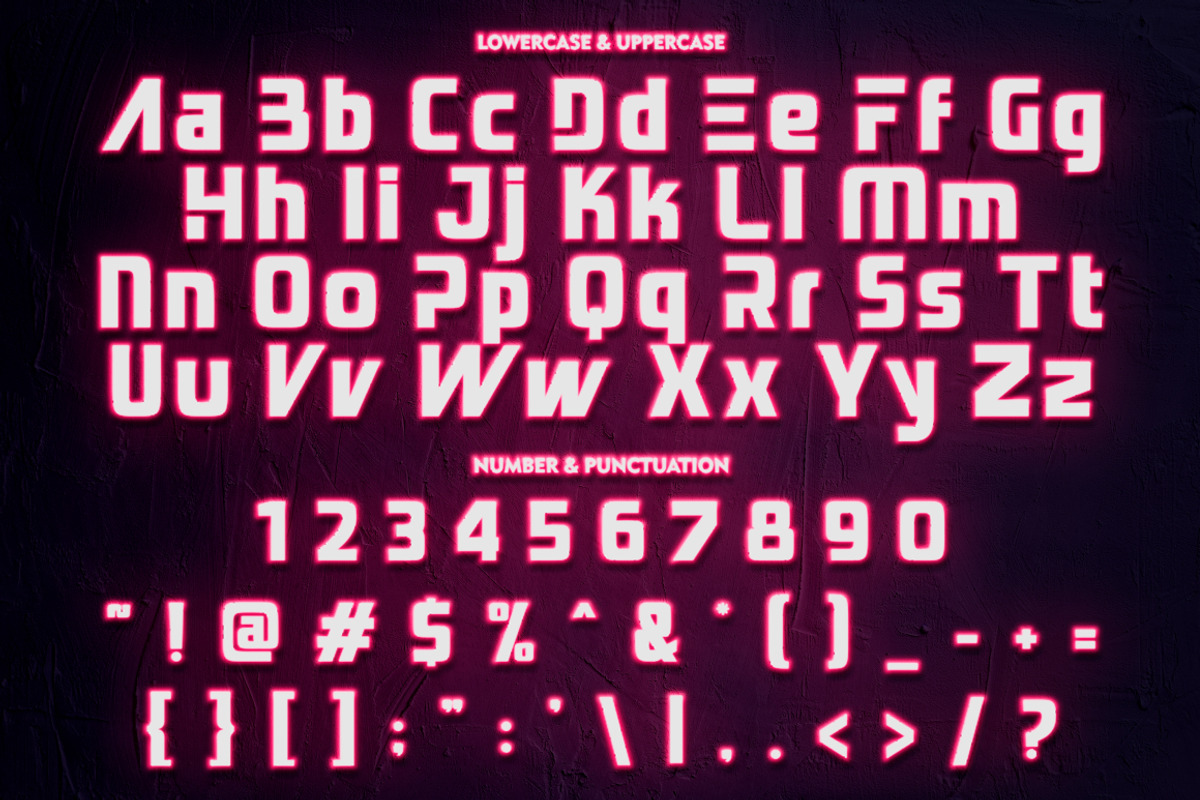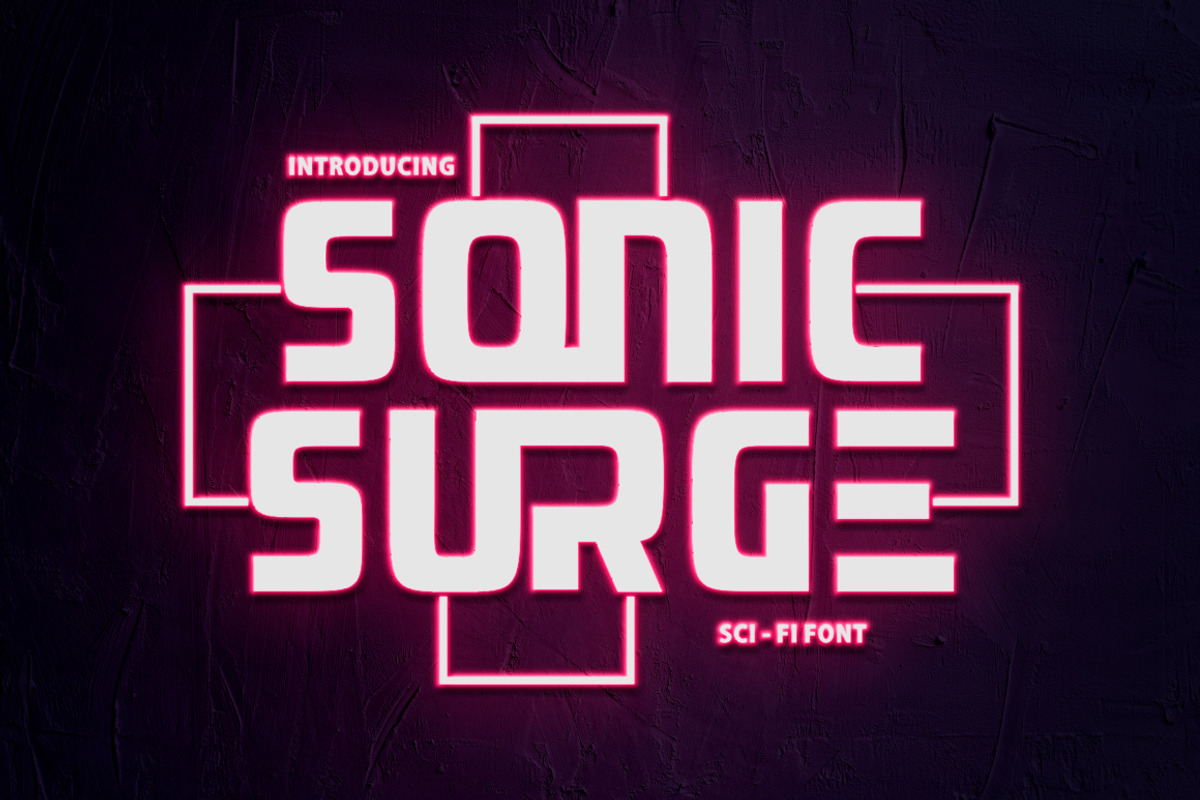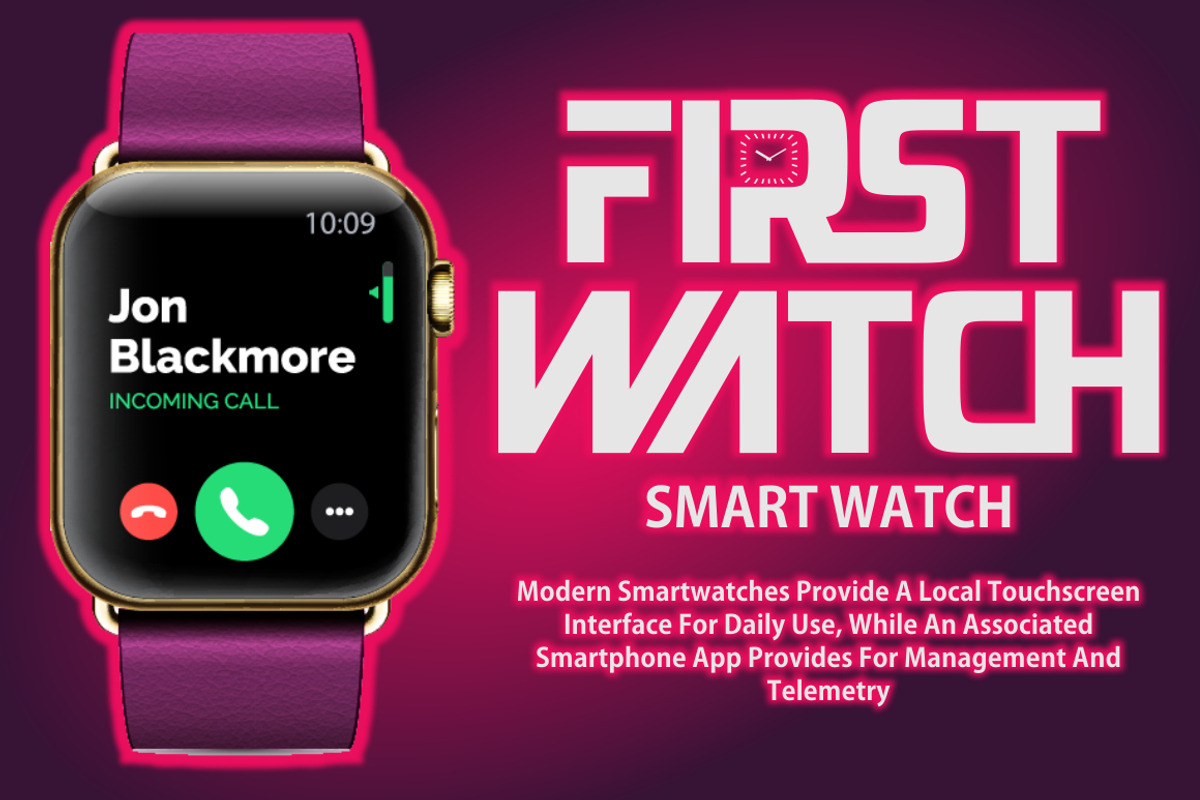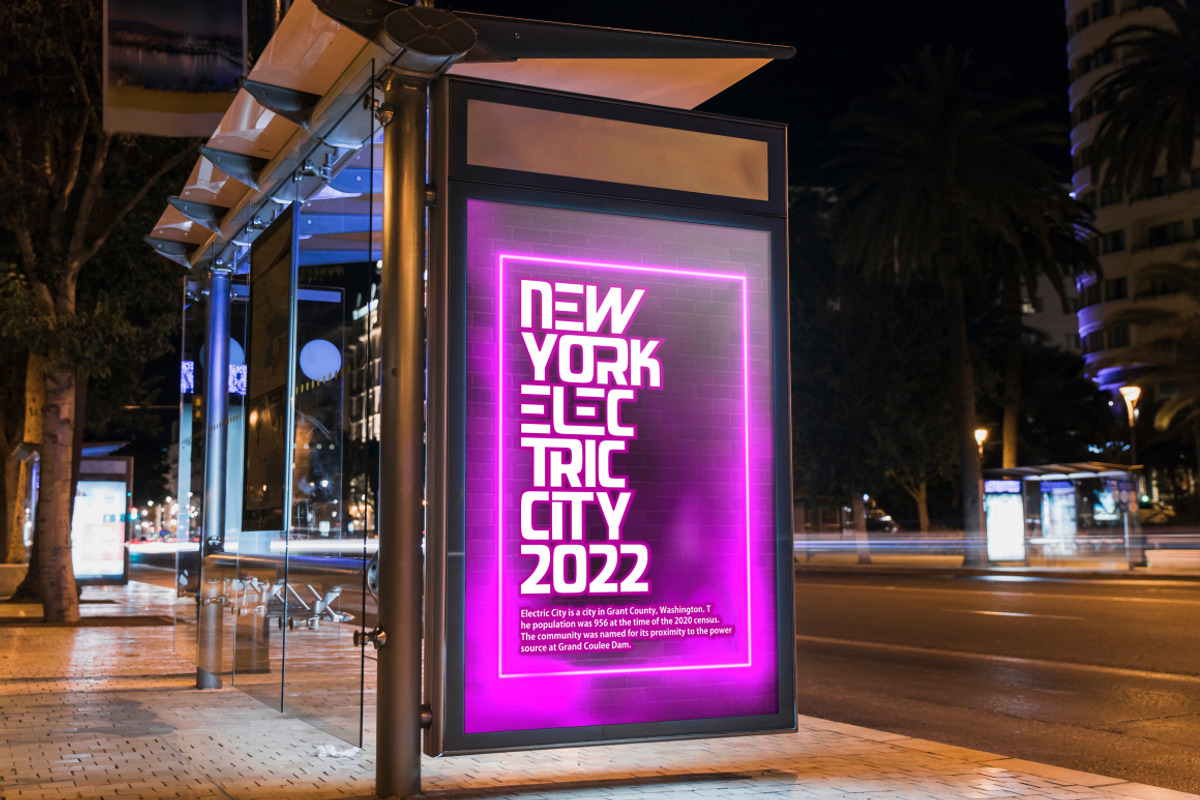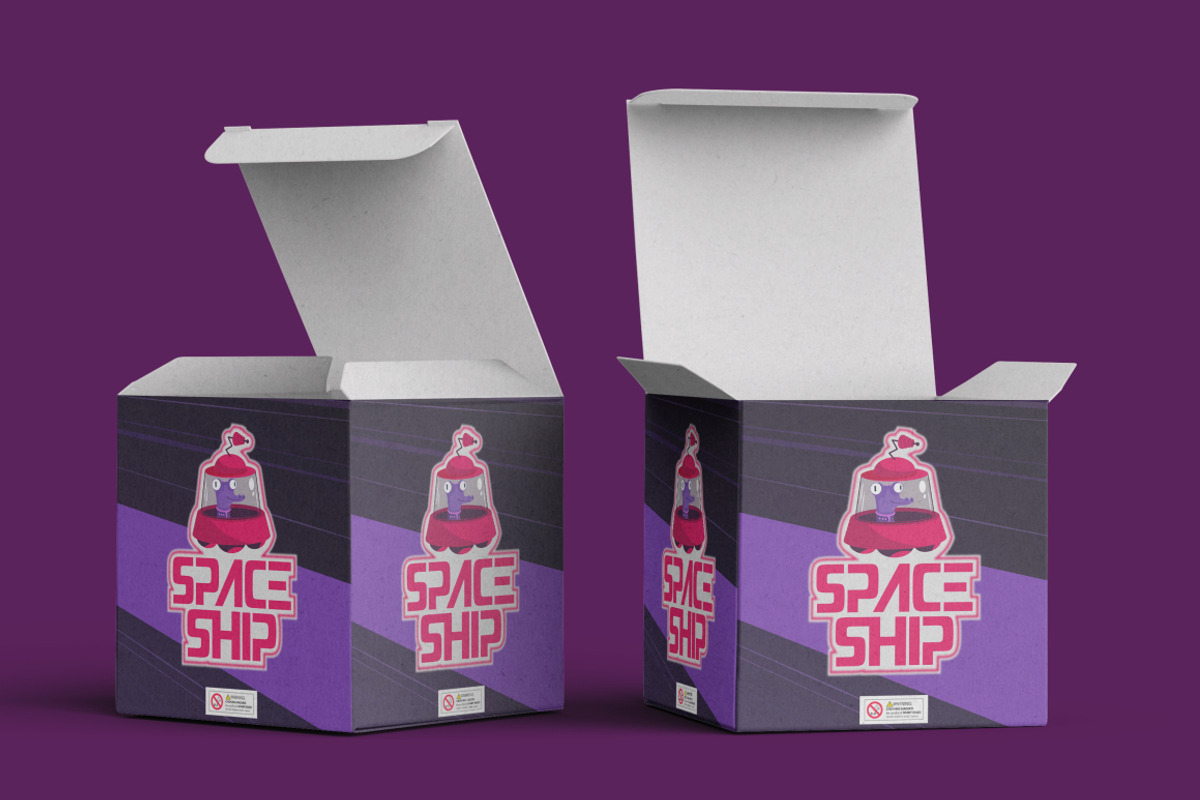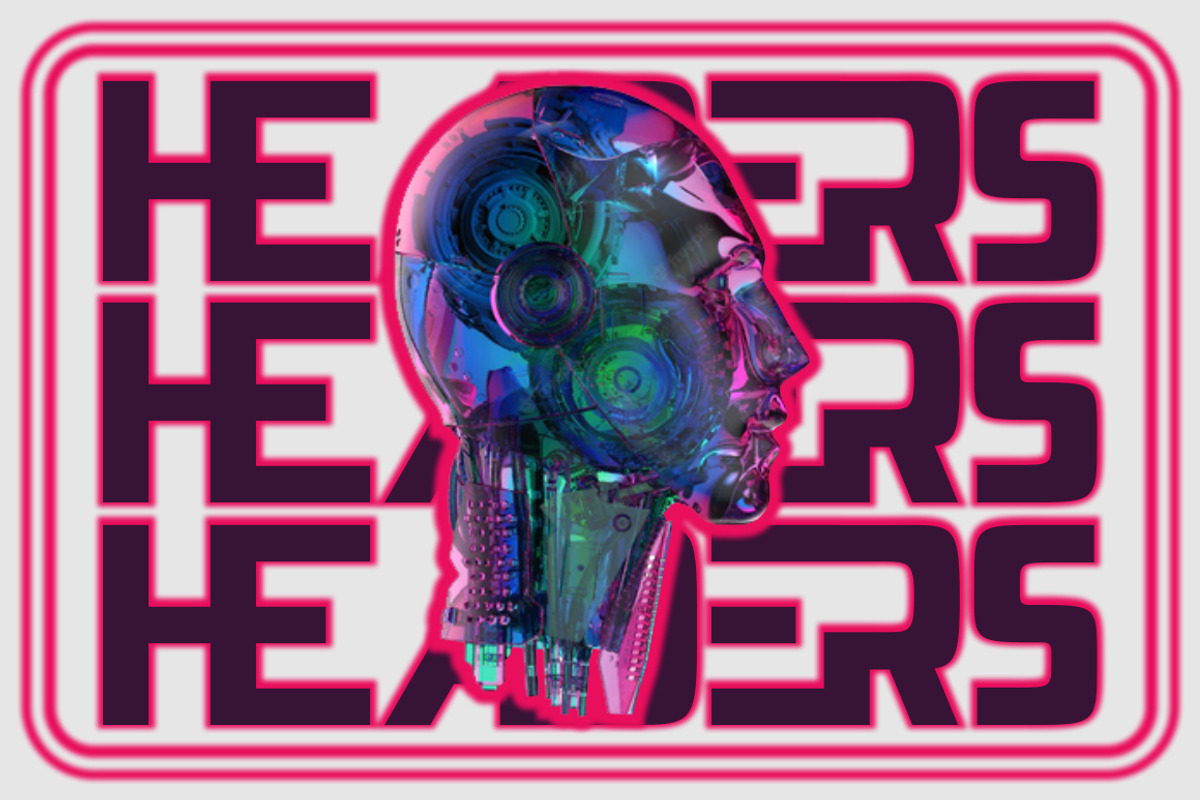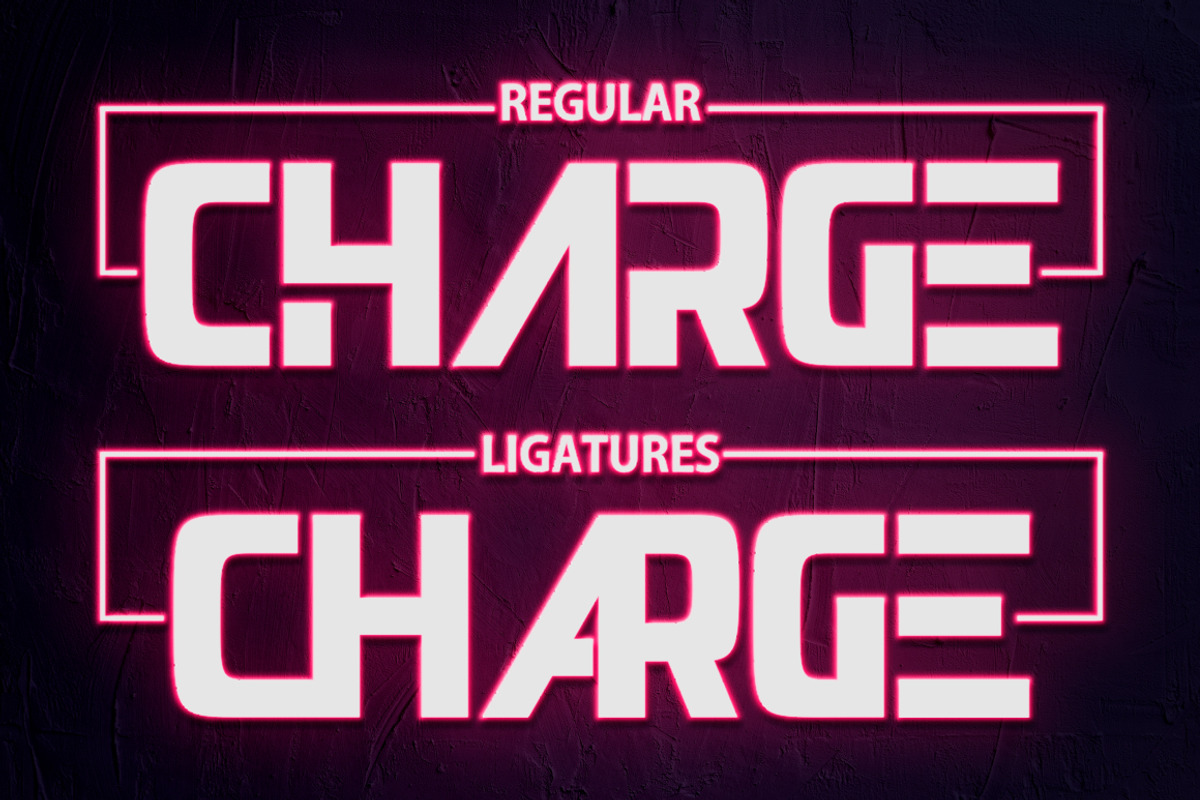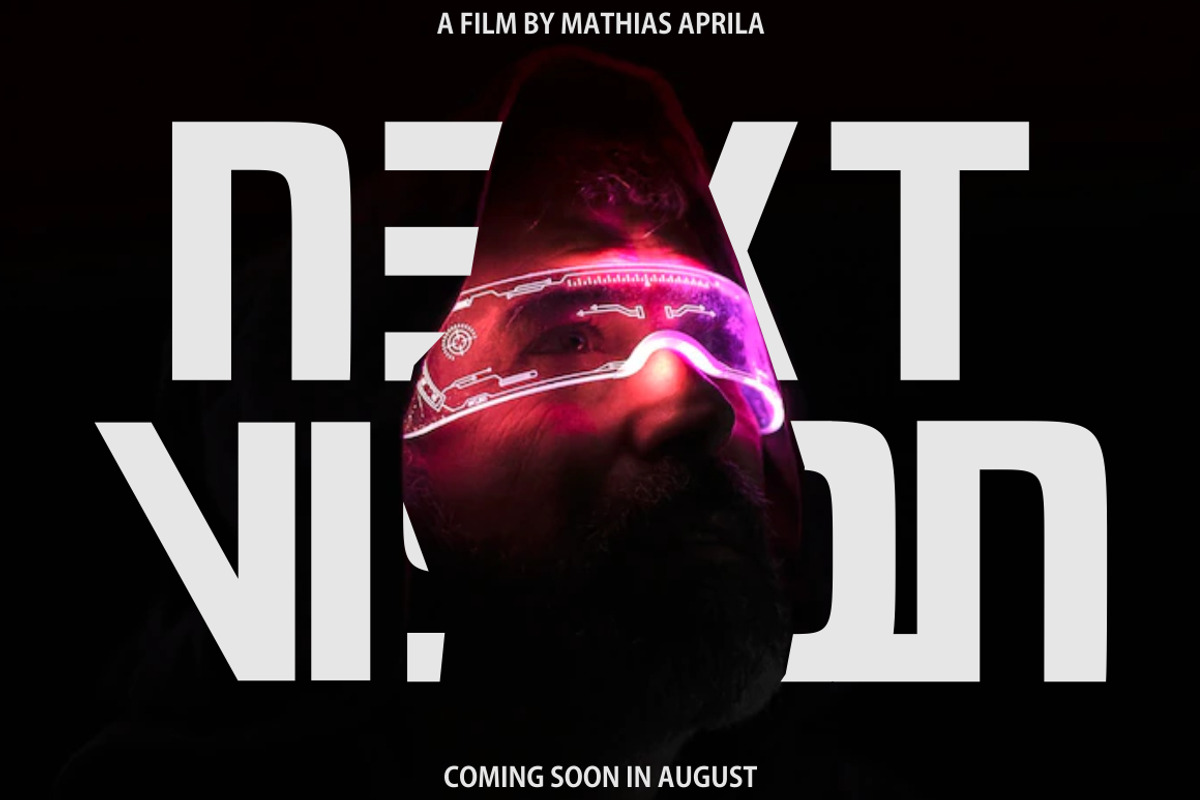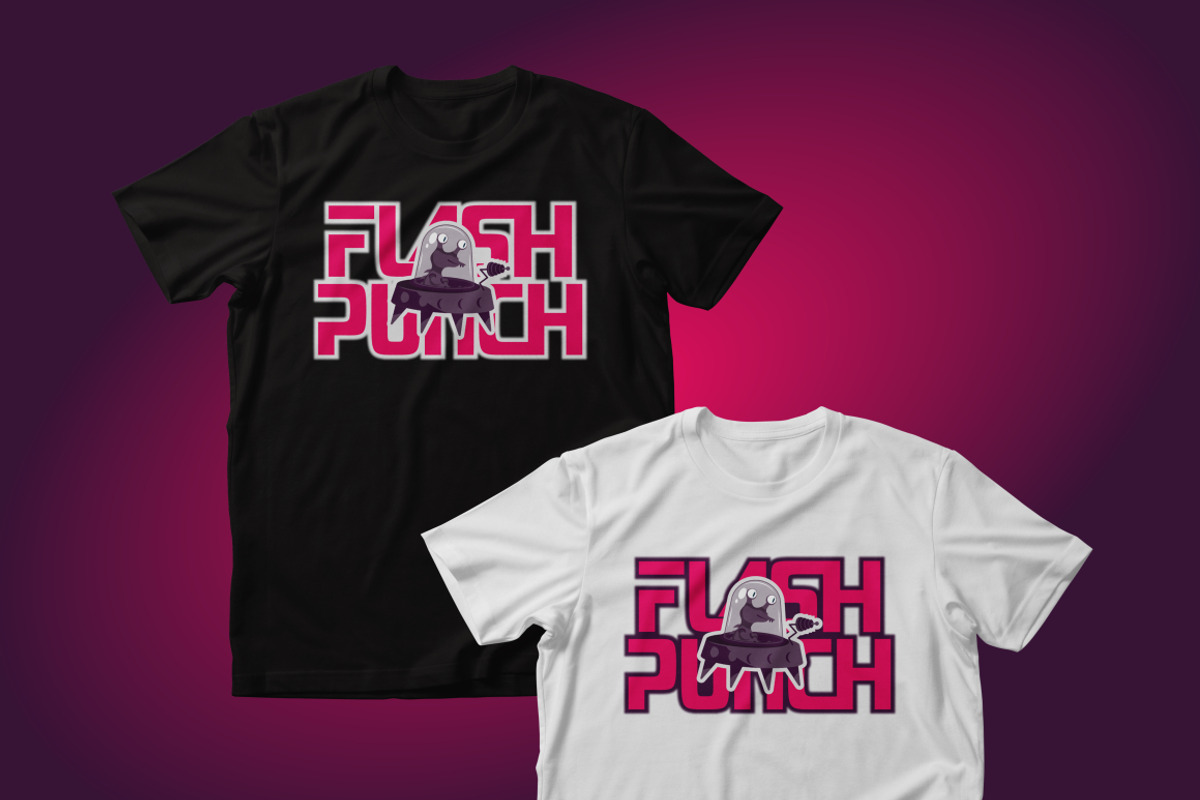
Sonic Surge - Scifi Font
Introducing Sonic Surge - Scifi Font. Sonic Surge is a bold and authentic display font. It celebrates abstract shapes in all their eclectic brilliance. Sonic Surge is great for any kind of display purpose from logos, Tshirt, apparel, product packaging, tittle header, poster, merchandise, social media, labels, branding.